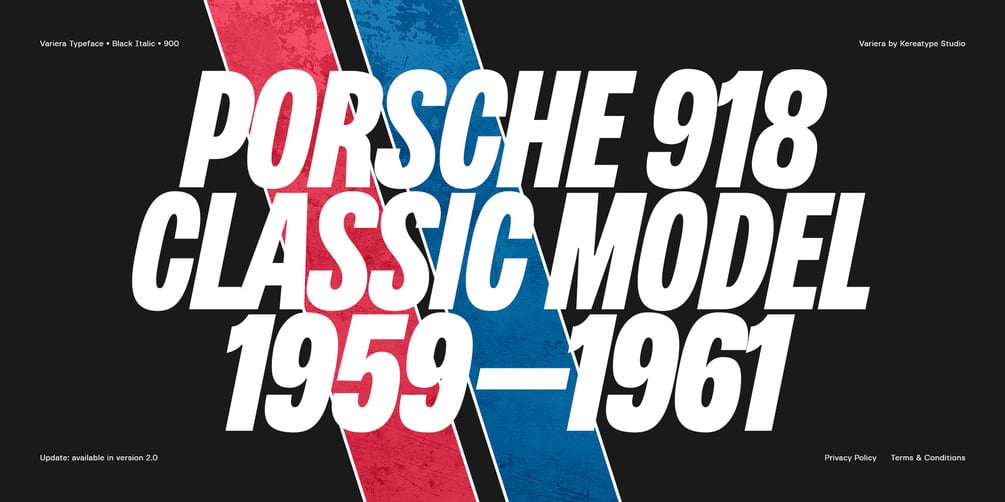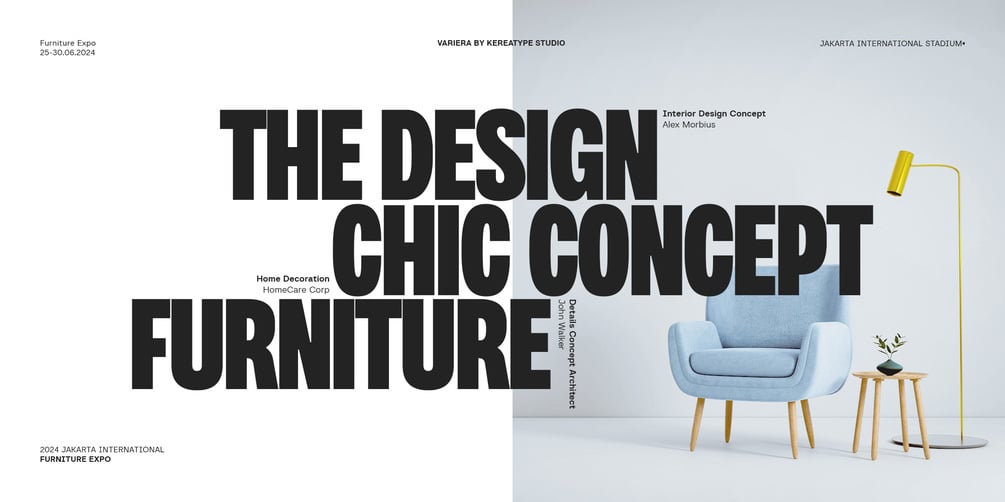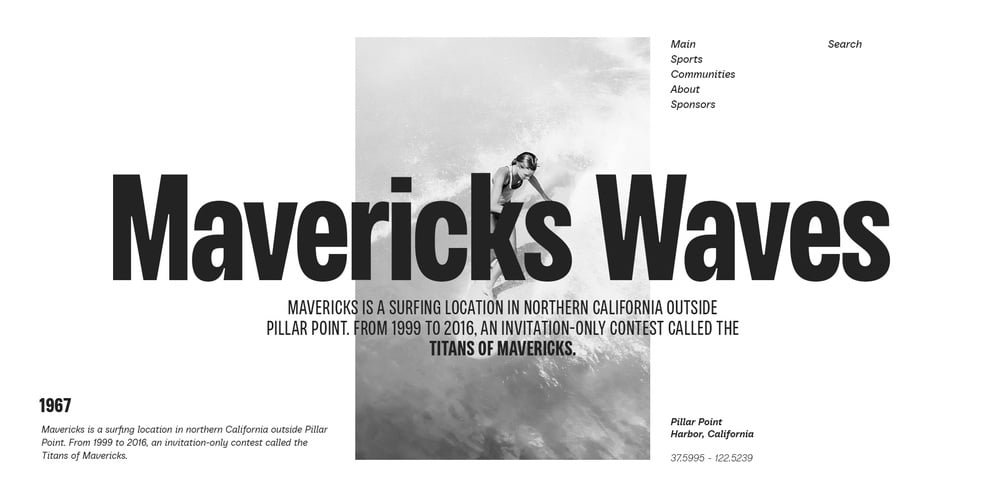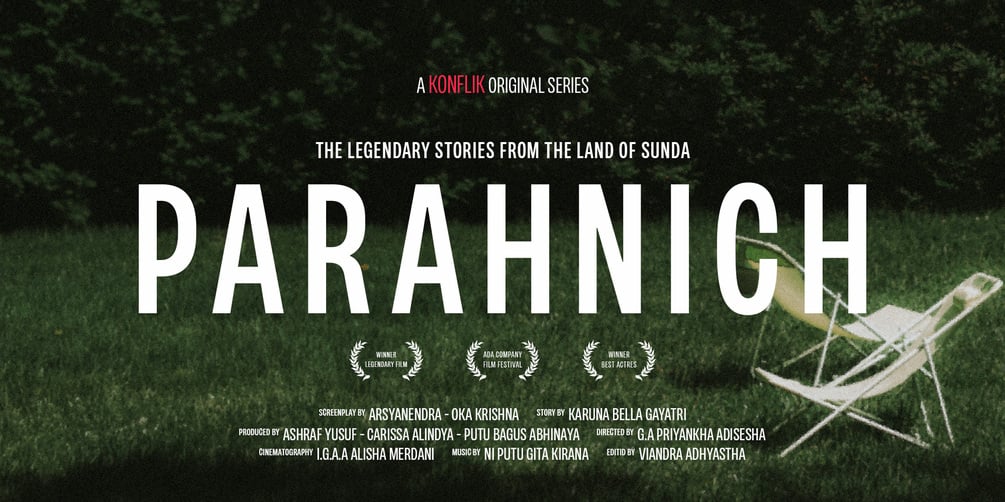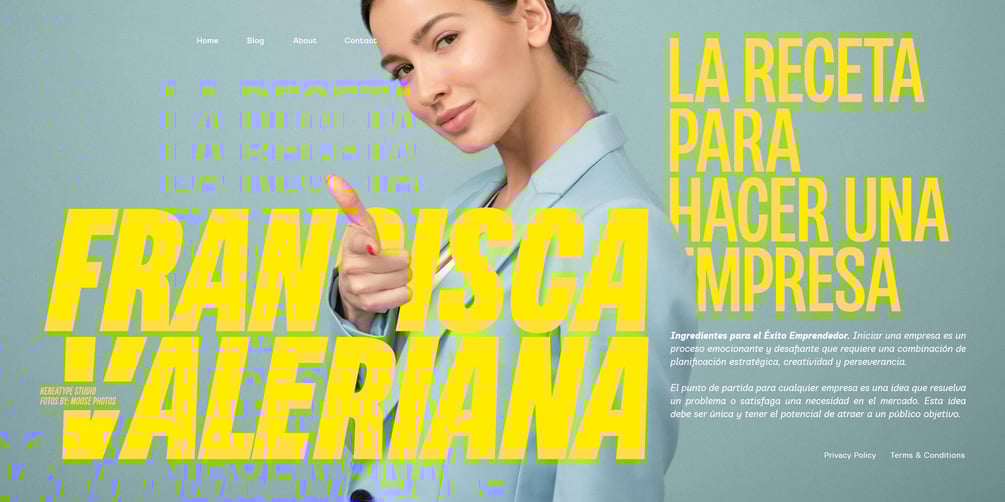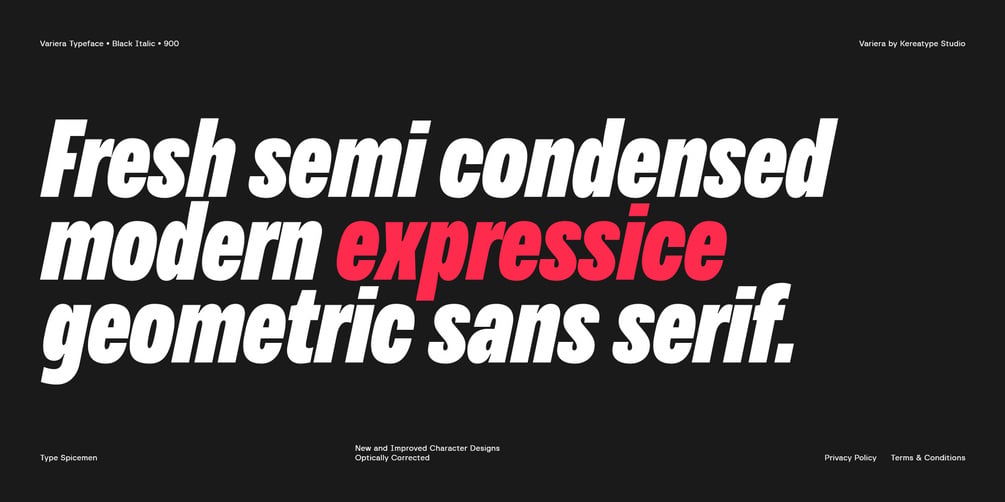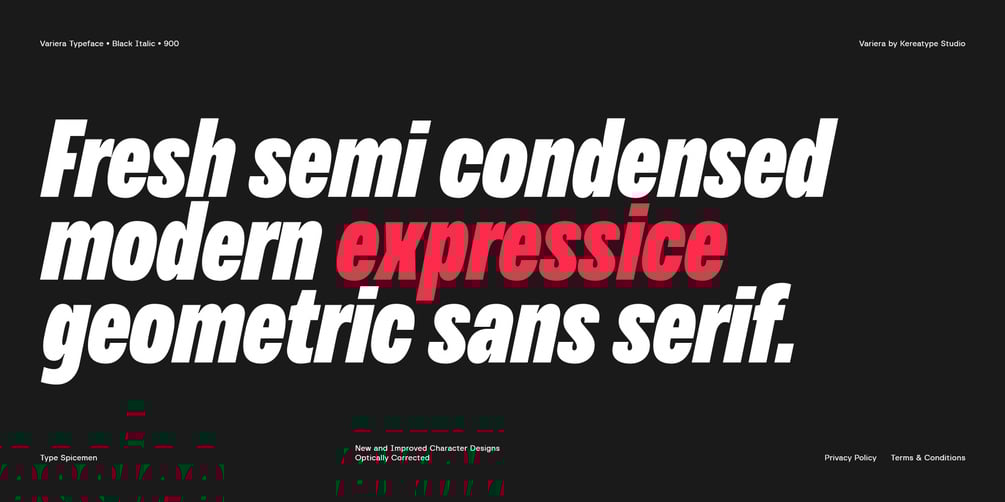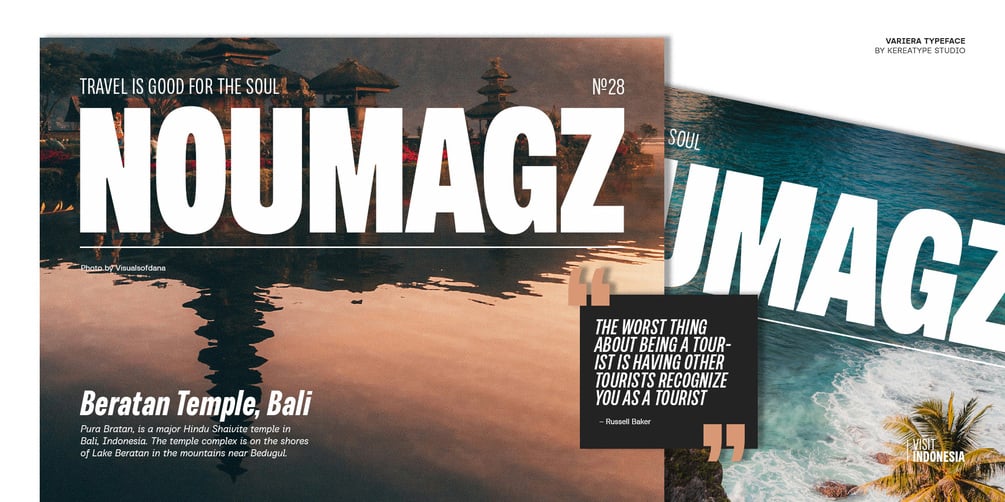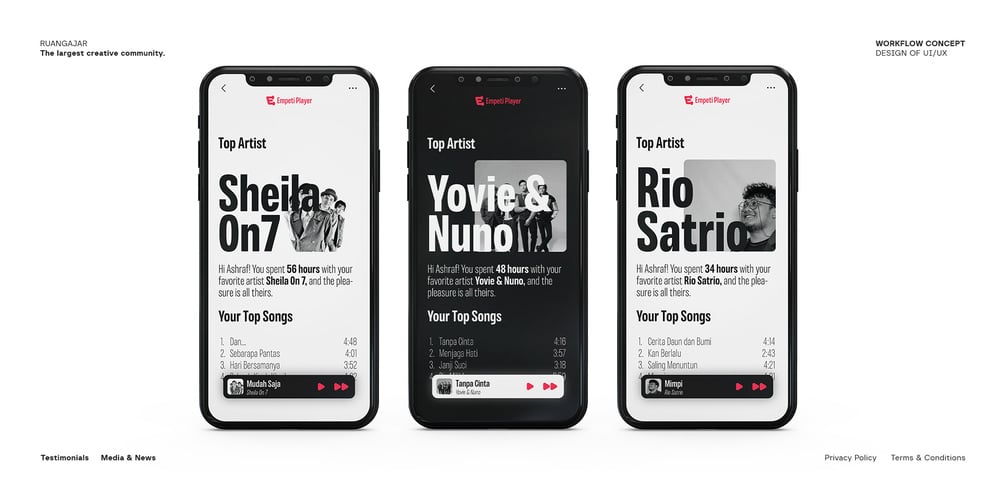
Variera - Geometric Condensed Typeface
Variera is a semi-condensed geometric sans-serif typeface. Consisting of 18 fonts, it offers 9 weights ranging from Thin to Black, each accompanied by matching italics featuring true italics style. These italics stand out in headlines and exude a charming personality.
Variera is a versatile display typeface that adds flavor to any project. Every aspect of its design works harmoniously to captivate the audience, blending emotion with usability. This allows you to craft attractive and distinctive designs effortlessly.
18 Font Styles with 832 Glyphs each Including Italics & Multilingual Support